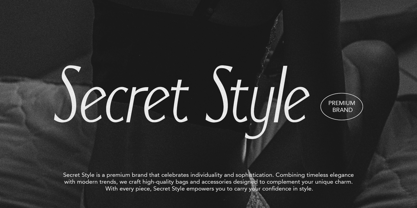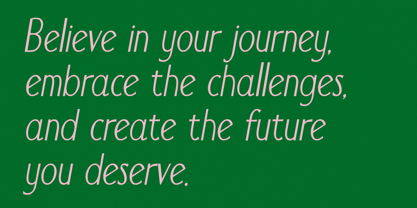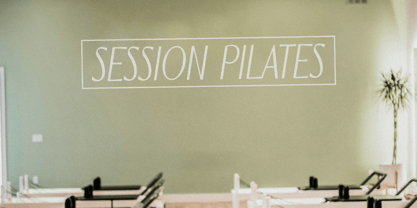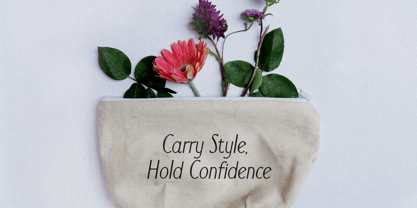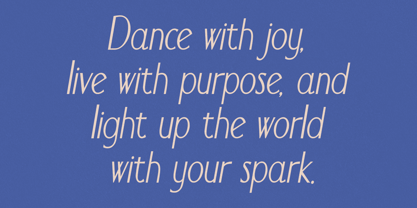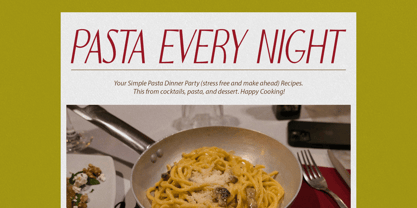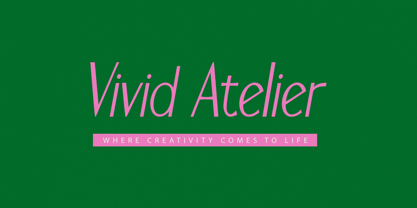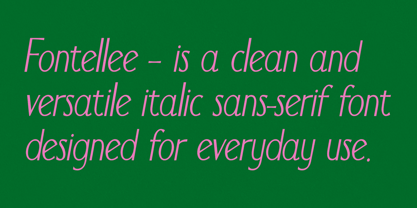
Fontellee Sans
The Fontellee Sans Font Family was designed by Elvina Gafarova and published by Elvina Studio. Fontellee Sans contains 2 styles and family package options.
Fontellee Sans is a modern sans-serif font with an italic style. Perfect for everyday use, it’s clean, versatile, and adds a simple touch of elegance to any project.
• Upper/lowercase, numbers, punctuations;
• Regular, Bold.
Language support: English, German, French, Spanish, Italian, Danish, Finnish, Portuguese, Swedish, Norwegian, Dutch, Indonesian, Luxembourgish, Icelandic, Cornish, Hungarian, Filipino, Romansh, Slovenian, Estonian, Polish, Turkish.